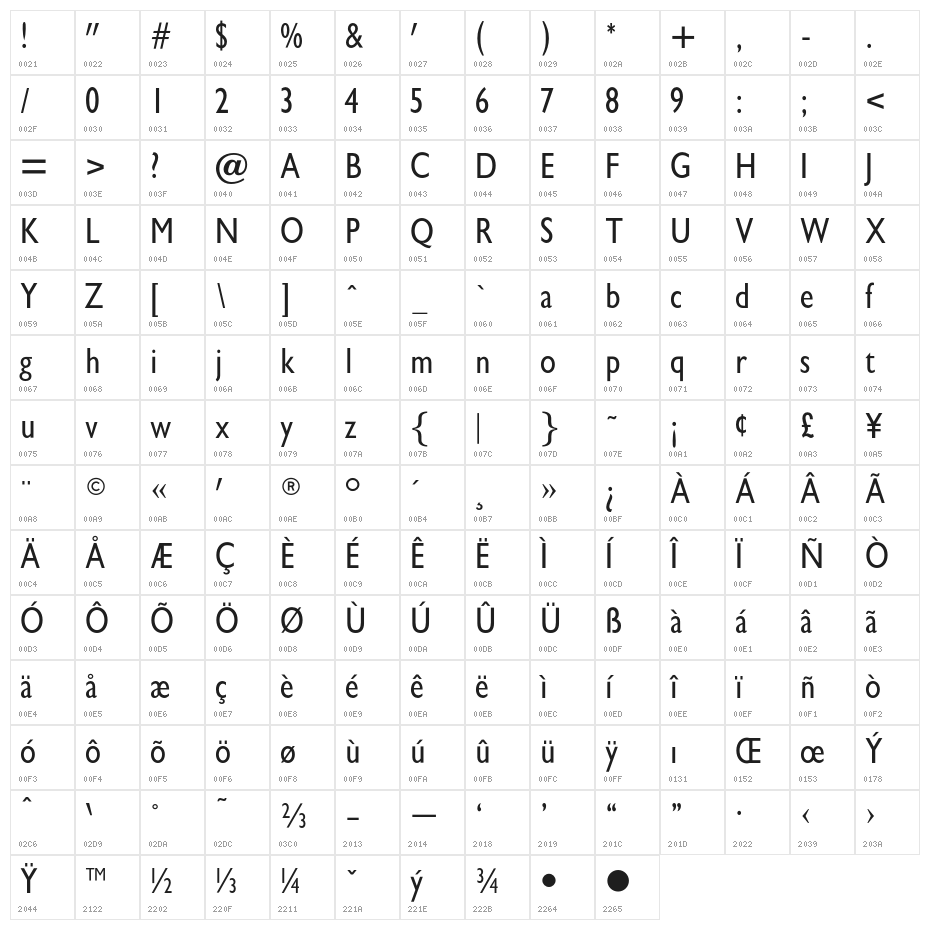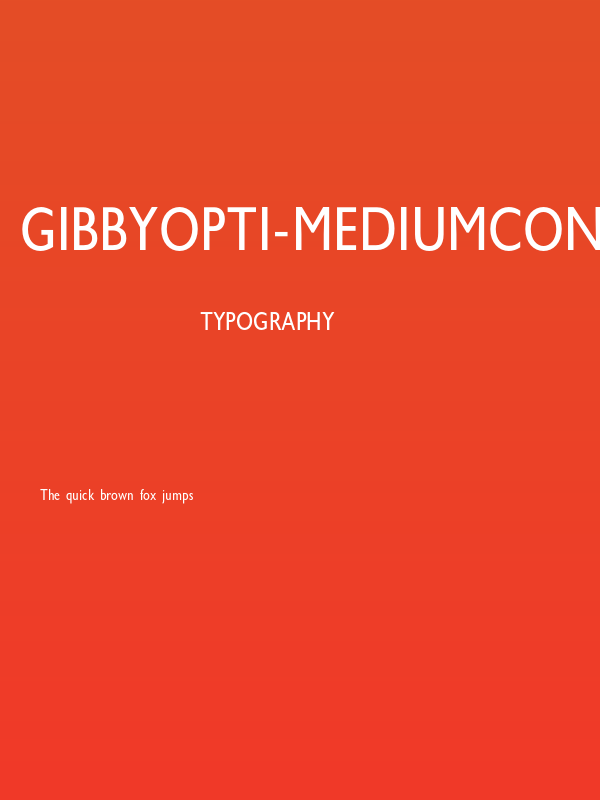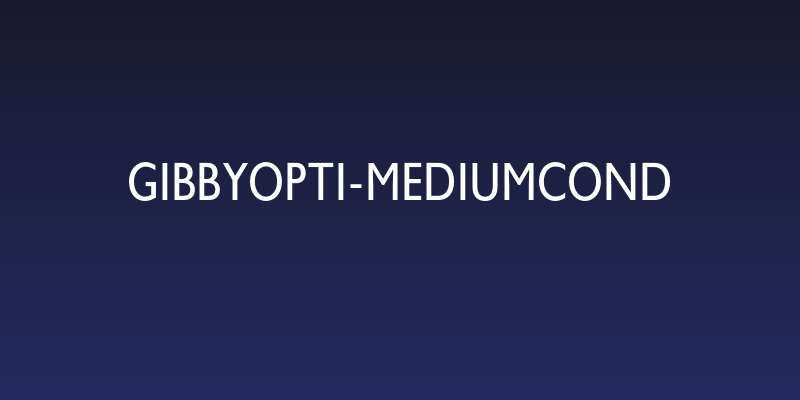
GibbyOpti-MediumCond Font
GibbyOpti-MediumCond Description
This font features a clean and modern sans-serif style with a medium weight, offering a balanced and professional appearance. The characters are well-proportioned with a consistent stroke width, providing a harmonious and readable text. The uppercase letters are bold and assertive, while the lowercase letters maintain a subtle elegance. The numerals are clear and straightforward, making them suitable for various applications. The special characters are distinct and well-integrated, enhancing the font's versatility. Overall, this font is ideal for projects that require a contemporary and polished look.
Proposed ProjectsIdeal for branding, corporate materials, web design, and editorial layouts.